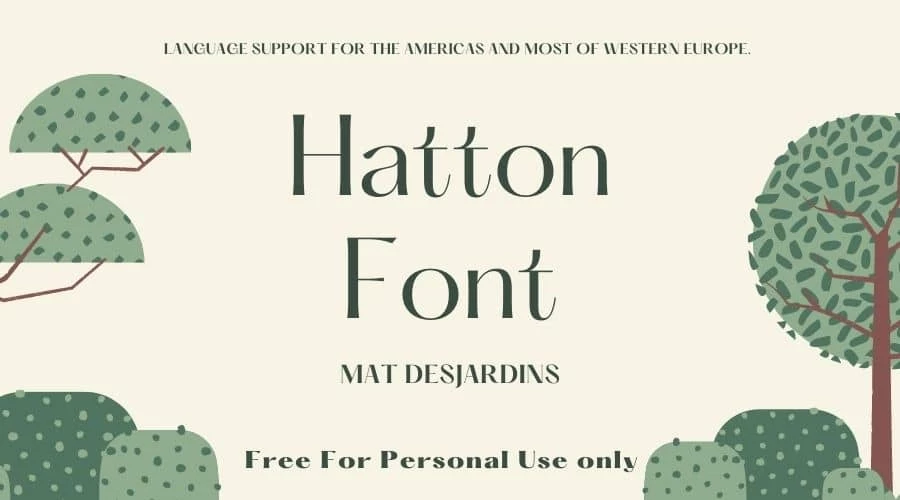
Hatton Font
Designed as a collaboration with London-based design studio Two Times Elliott, the Hatton font is a homage to the history of the London district, Hatton Garden.
Nestled in the design studio’s former home, Clerkenwell, Hatton Garden is famous as London’s jewelry quarter and is at the heart of the diamond trade in the UK. The studios worked together to distill the character and nuances of local street signage, ghost signs, shop fronts, and landmarks that are unique to the Hatton Garden location, while also capturing the imperfection and hand-rendered nature of the found lettering.
The result is an eclectic and idiosyncratic typeface that expresses the history of craft in the area through a set of unique characters, ligatures, and glyphs.
Since Hatton is intense and capitalized by its tendency, it is better not to utilize it as an ordinary textual style. Yet, in the event that you are pondering marking, this text style is valuable for you.
What type of font is Hatton?
Ans: Hatton is a vintage font designed by Mat Desjardins.